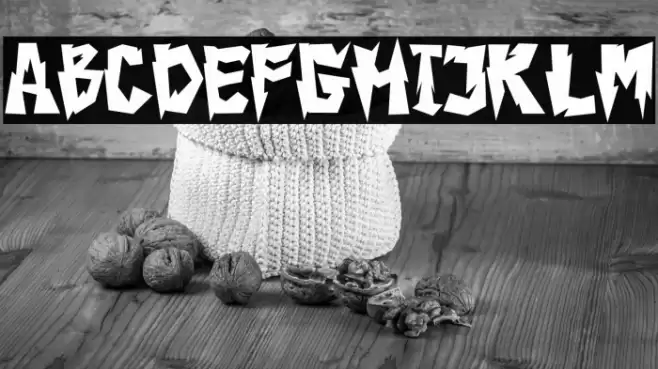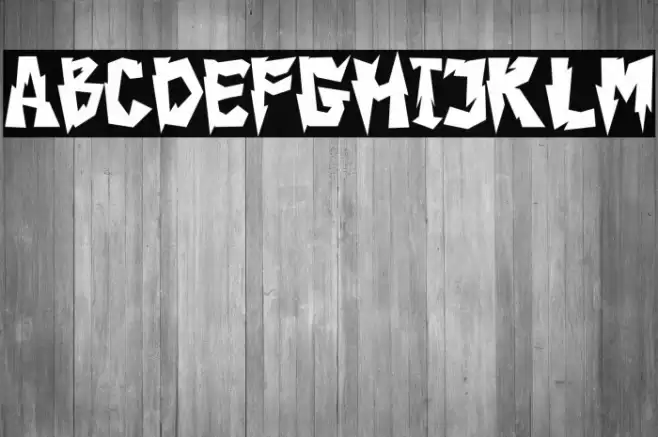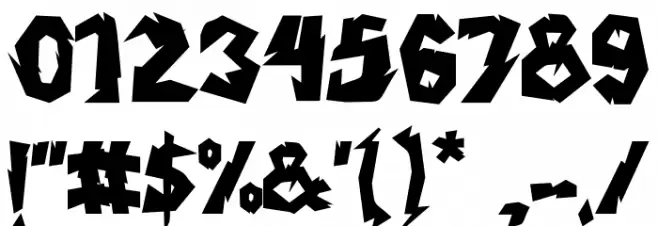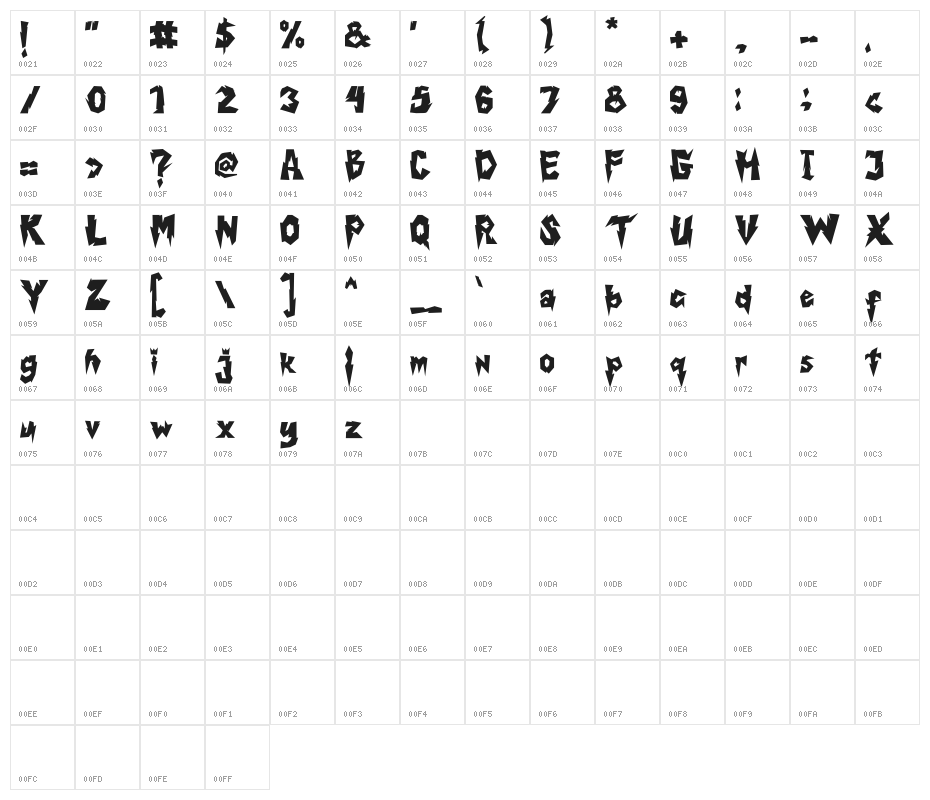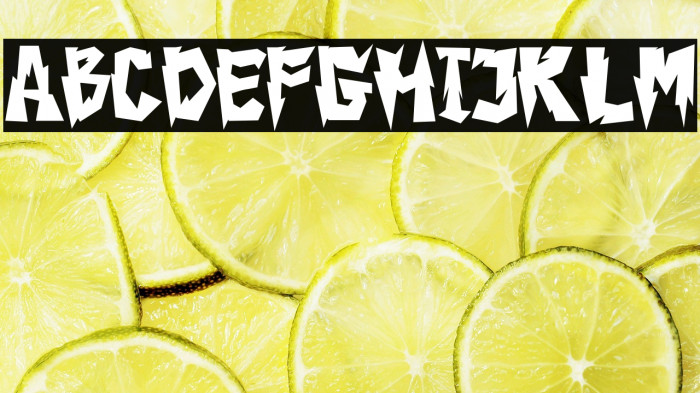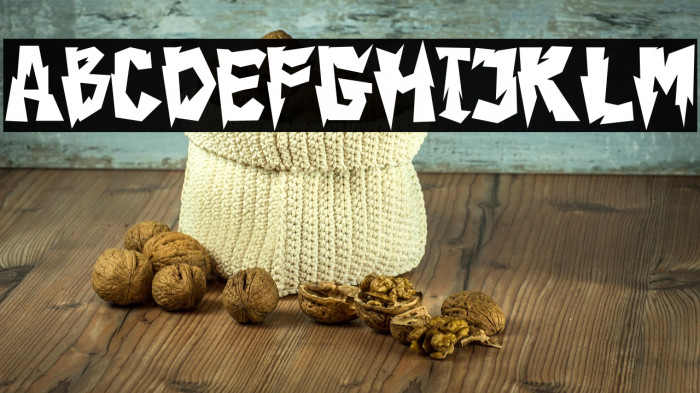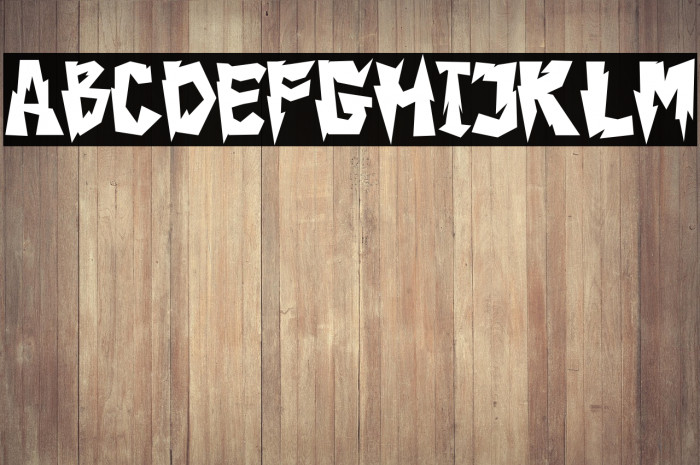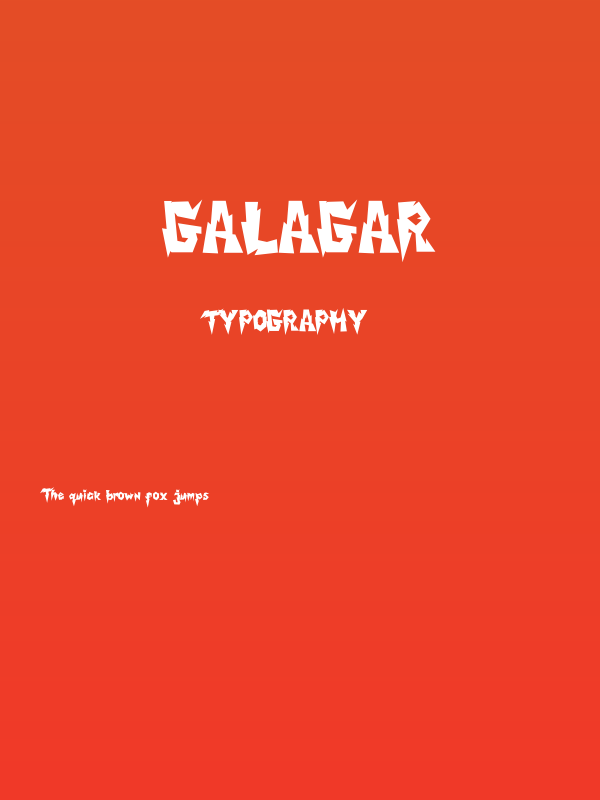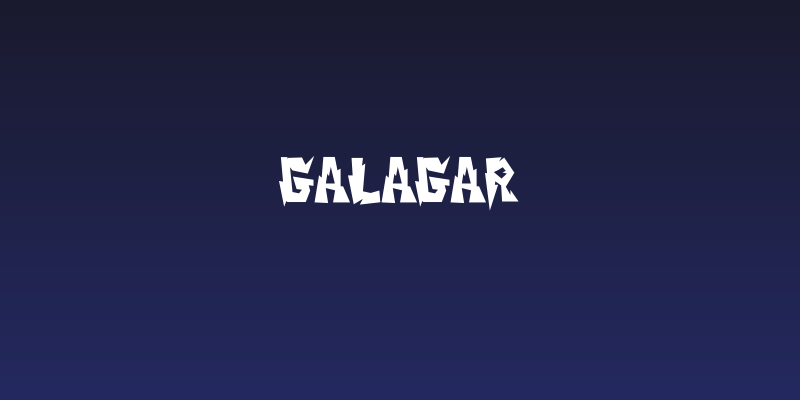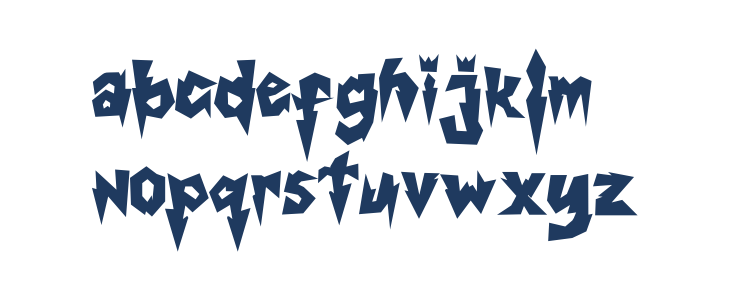
Galagar Font
Galagar Description
This font features a bold and jagged design, reminiscent of sharp, angular shapes that create a striking and edgy appearance. The characters are highly stylized with irregular edges, giving them a dynamic and aggressive look. The uppercase and lowercase letters maintain a consistent theme, with each character exhibiting unique, pointed elements that contribute to the overall chaotic aesthetic. Numbers and special characters follow the same design principles, ensuring uniformity across the font. This font's distinctive style makes it ideal for projects that require a bold and unconventional typeface.
A bold, jagged font with sharp, angular shapes and an edgy appearance from Uncategorized fonts.
- Font: Galagar
- Proposed Projects: Perfect for music album covers, video game titles, posters, and any project needing a bold, edgy typeface.
- Overall Style: Modern, Edgy